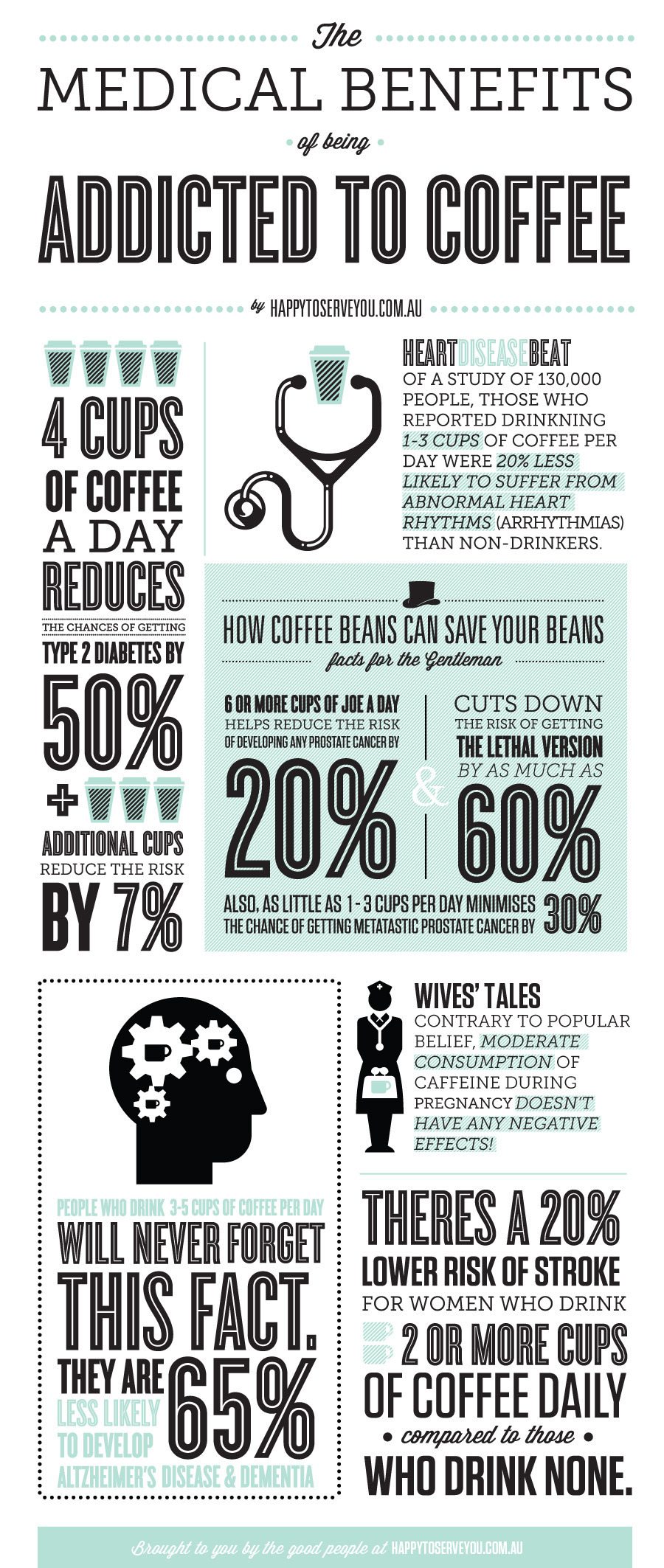
Condensed sans-serif with alternate inline version
Looking for the sans-serif typeface used in this infographic with the condensed version as well as the inline condensed version.
Really nice typeface but not sure what it is?
The typeface used for the word 'contents'
If anyone could identify that would be great! :)
Double Elephant Sextos and other whacky vintage typobabble
Hi all,
I've just read about James Joyce's Copenhagen Cats apparently being 'illegally published' in the UK. It's format is DOUBLE ELEPHANT SEXTOS. Amazing!
Can anyone think of other whacky vintage (or otherwise) typotalk?
Nut, mutton, etc don't seem to live up to DOUBLE ELEPHANT SEXTOS!
what font is this?
Motiva Sans' major facelift.
Motiva Sans has been received a major facelift, with revised shapes, all new true italics, small caps, and OT features.
Volvic water
I'm already thinking this doesn't exist as a font but if anyone can suggest something close to start from it would be a great help.
-Relatively big x-height (attenuation of hierarchy)
-Some caps with similitude to the lowercase (e.g B, C, D, P, R) (attenuation of hierarchy)
-Modest language coverage
-Experiment with interpolation: extra light version will be more geometric, fat version will have a much more modulated stroke.
-Italics with a moderate 5° slope
-Redemption